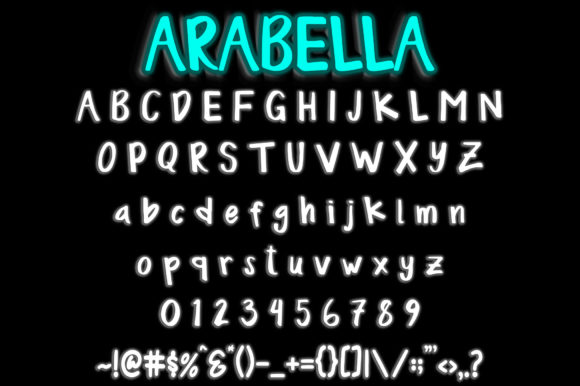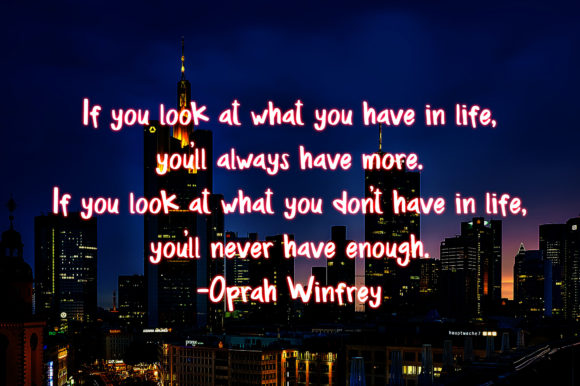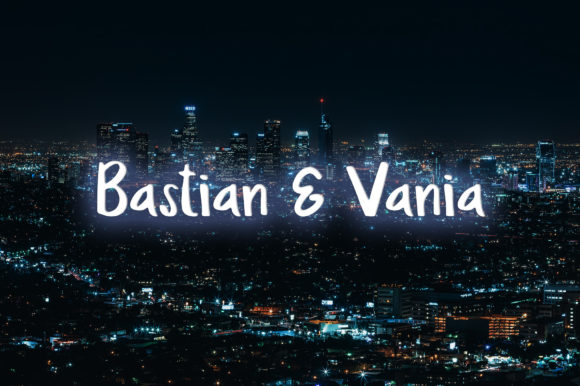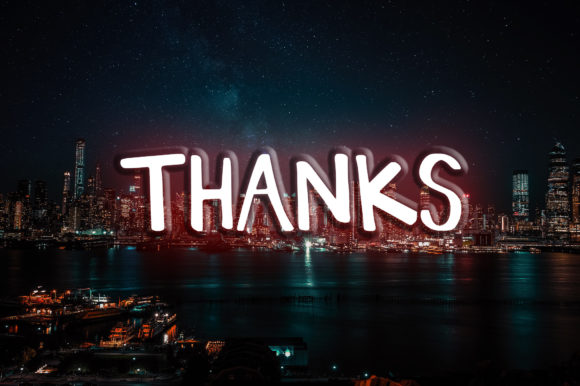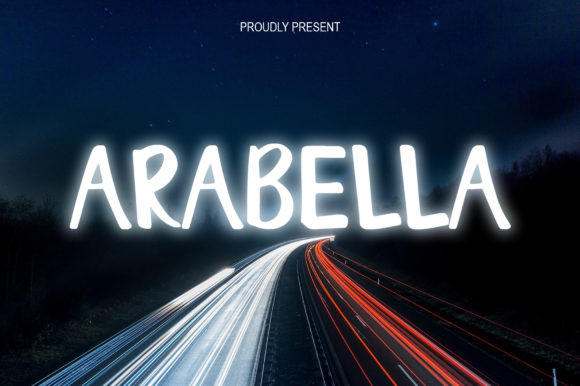
The Relaxed Charm of Arabella Font: A Designer’s New Best Friend
I’ll never forget the time I was working on a project for a trendy boutique hotel. The client wanted a font that exuded a cool, casual vibe, but I was struggling to find the perfect fit. That’s when I stumbled upon Arabella Font, and it quickly became my go-to choice for adding a relaxed touch to my designs.
A Personal Review of Arabella Font
• ✨ Its informal style and casual vibe make it perfect for creative projects that require a laid-back feel.
• ✅ The font’s unique character set and OpenType features allow for endless customization options.
• 💡 Arabella Font is incredibly versatile, making it suitable for a wide range of design applications, from branding and advertising to packaging and signage.
While Arabella Font is an excellent choice for many design projects, there are a few things to keep in mind:
• 🤔 The font’s casual nature may not make it the best fit for formal or corporate designs.
• ⚠️ Some users have reported issues with kerning and spacing, particularly at smaller font sizes.
The Story Behind Arabella Font
Arabella Font was designed with the intention of creating a font that would capture the essence of casual, laid-back designs. The designer aimed to create a font that would be perfect for creative projects that require a relaxed touch, without sacrificing legibility or style.
Q: What type of projects is Arabella Font best suited for?
A: Arabella Font is perfect for creative projects that require a relaxed, casual touch, such as branding, advertising, packaging, and signage.
Q: Is Arabella Font available in different weights and styles?
A: Arabella Font comes in a range of weights and styles, making it versatile and suitable for a wide range of design applications.